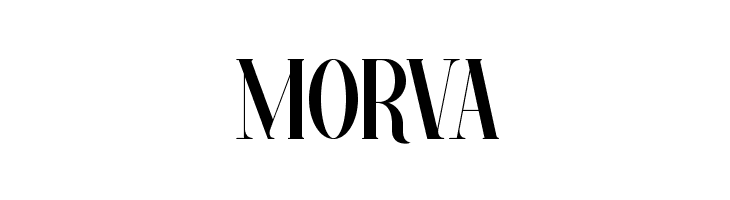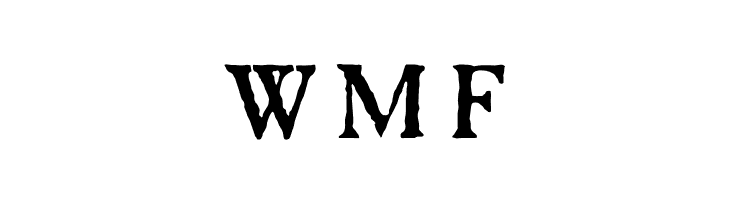
A classic serif font with elegant serifs and balanced readability.
A bold, geometric font with a futuristic and industrial style.
A modern, geometric font with sharp angles and a futuristic style.
A modern, italicized font with a futuristic and dynamic style.
A modern, geometric font with art deco influences and elegant, slender characters.
A gothic-inspired font with sharp, angular lines and artistic flair.
A cursive, script-style font with elegant, flowing strokes.
A bold, condensed, and geometric font with a modern aesthetic.
A bold, angular font with a strong, industrial aesthetic.
A bold, modern sans-serif font with geometric lines and strong presence.
Bold, outlined font with a three-dimensional effect.
A bold, distressed font with a vintage, textured appearance.
A bold, pixelated font with a retro arcade game style.
A playful, cartoon-like font with exaggerated, dynamic characters.
A bold, graffiti-inspired font with dynamic and energetic strokes.
A tall, narrow, and whimsical font with a hand-drawn appearance.
A bold, condensed font with a sketch-like texture, ideal for standout designs.
A bold, distressed font with a vintage, hand-printed style.
A classic serif font with elegant strokes and timeless appeal.
A bold, rounded font with a playful and friendly style.
A bold, playful handwritten font with thick strokes and a casual style.